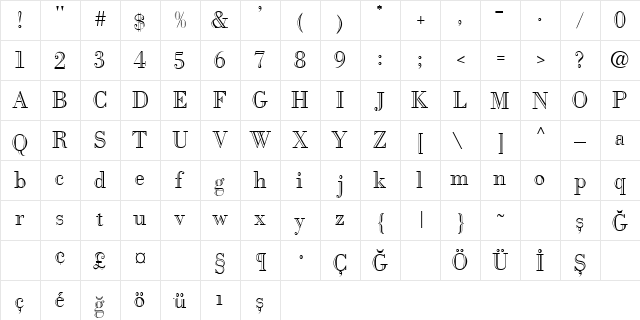
Alderney Engraved Plain Font Preview
Alderney Engraved Plain
Alderney Engraved Plain Font Details
Design Context for Alderney Engraved Typeface
Alderney Engraved is built around its visual character rather than neutral utility — its distinctive forms are designed to make an impression at display sizes.
Font Pairing: Pair with a clean neutral sans-serif for body copy to let Alderney Engraved's character lead without overwhelming the composition.
Pro Tip: Use Alderney Engraved exclusively at display sizes — it was designed to be seen, not read at length. Let a neutral companion handle body copy.